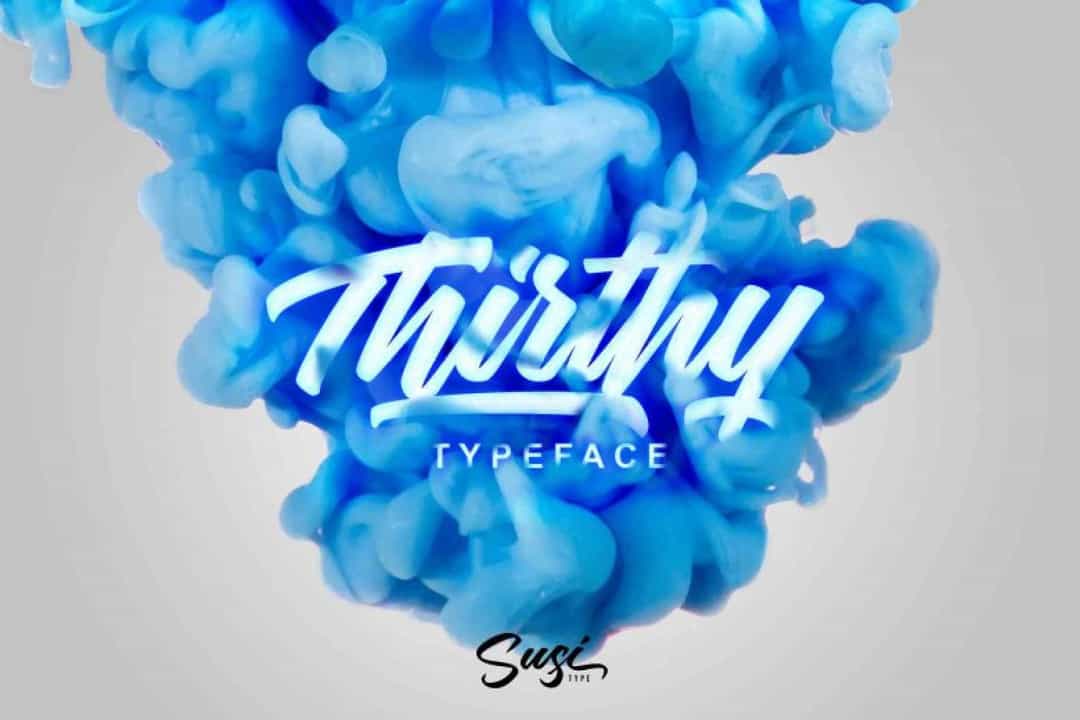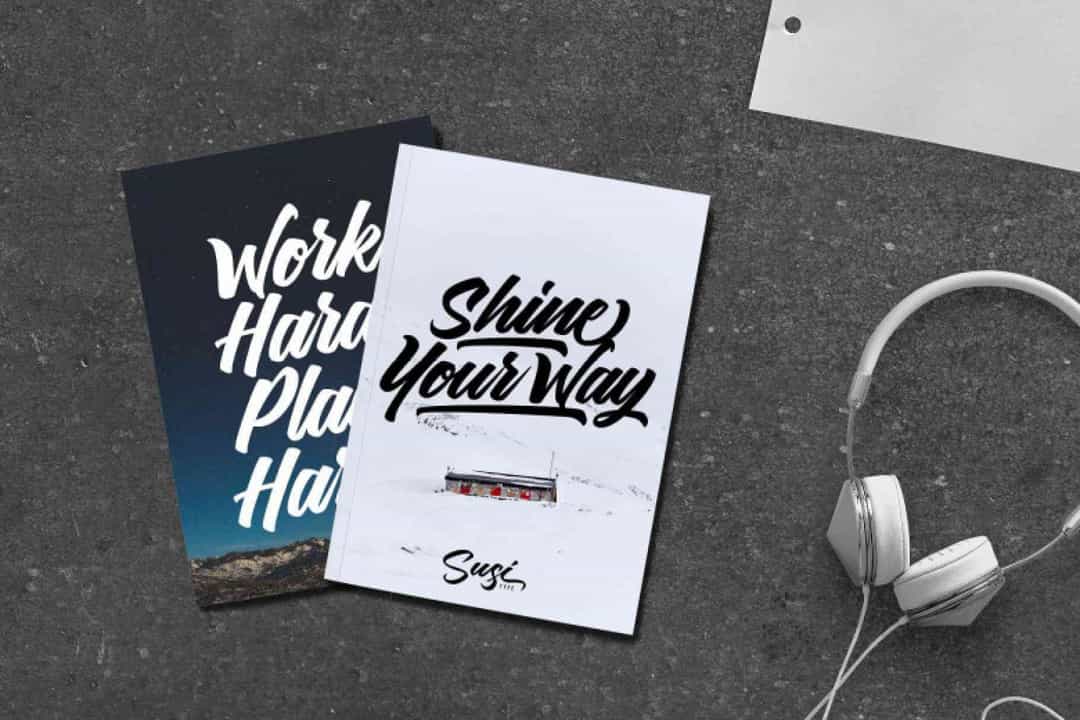
Presenting to you our first font , Thirthy. A raw handwritten typeface that will be very appropriate for any of your projects. Ideal for use as flyer, logotype, header, sign, etc. Suitable for both modern and retro look. You can also look at the preview samples that we have provided to trigger some ideas.